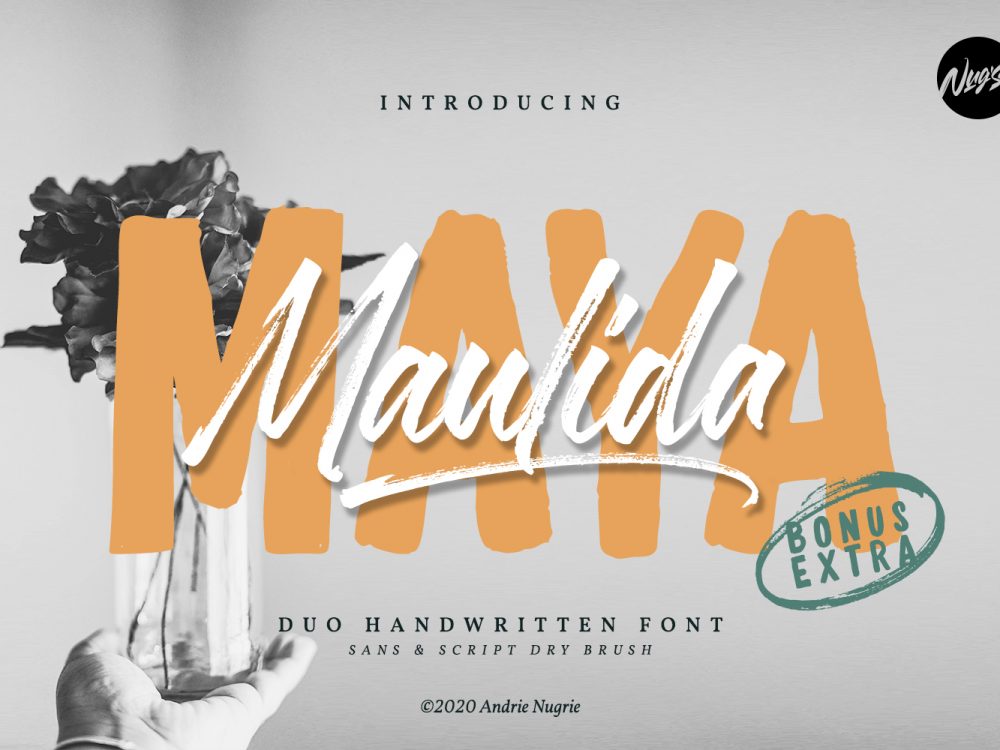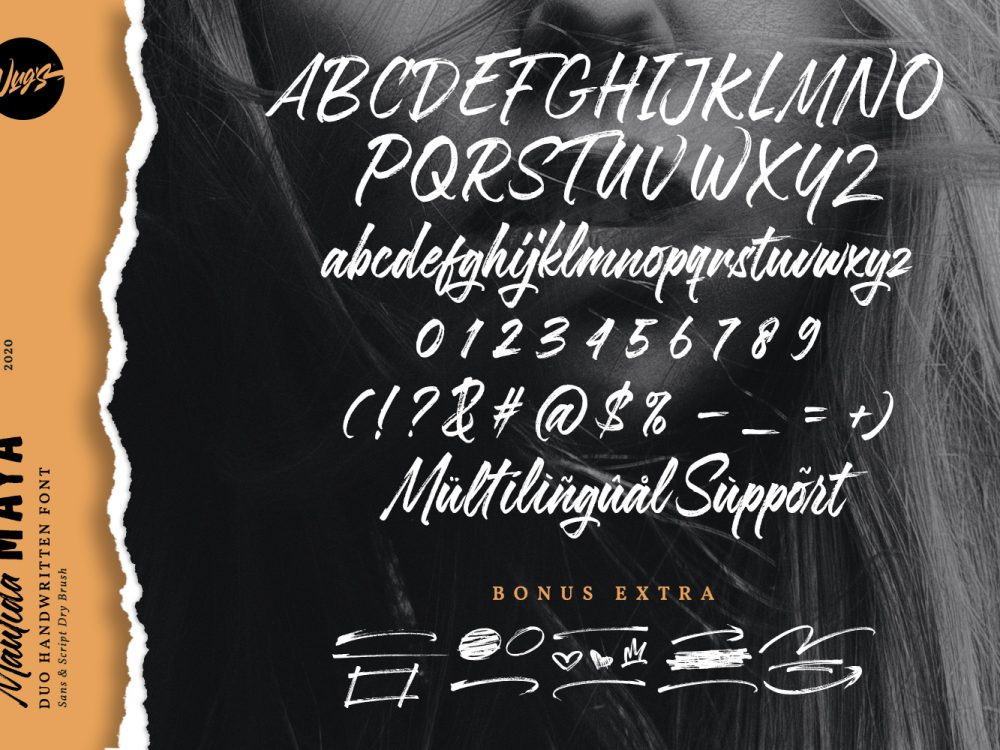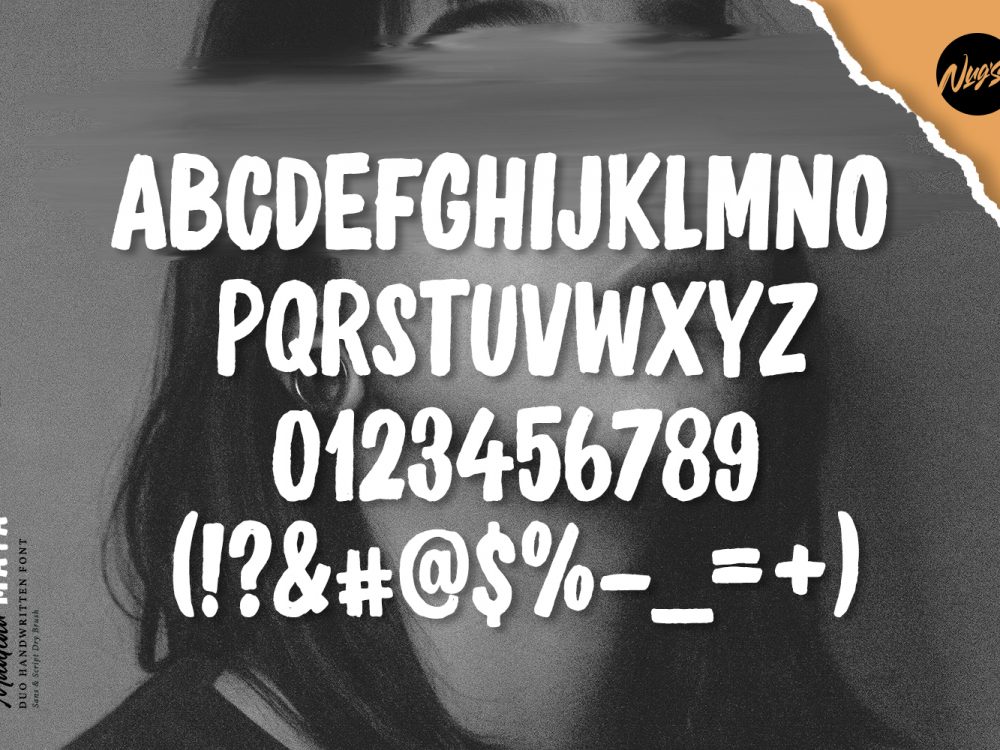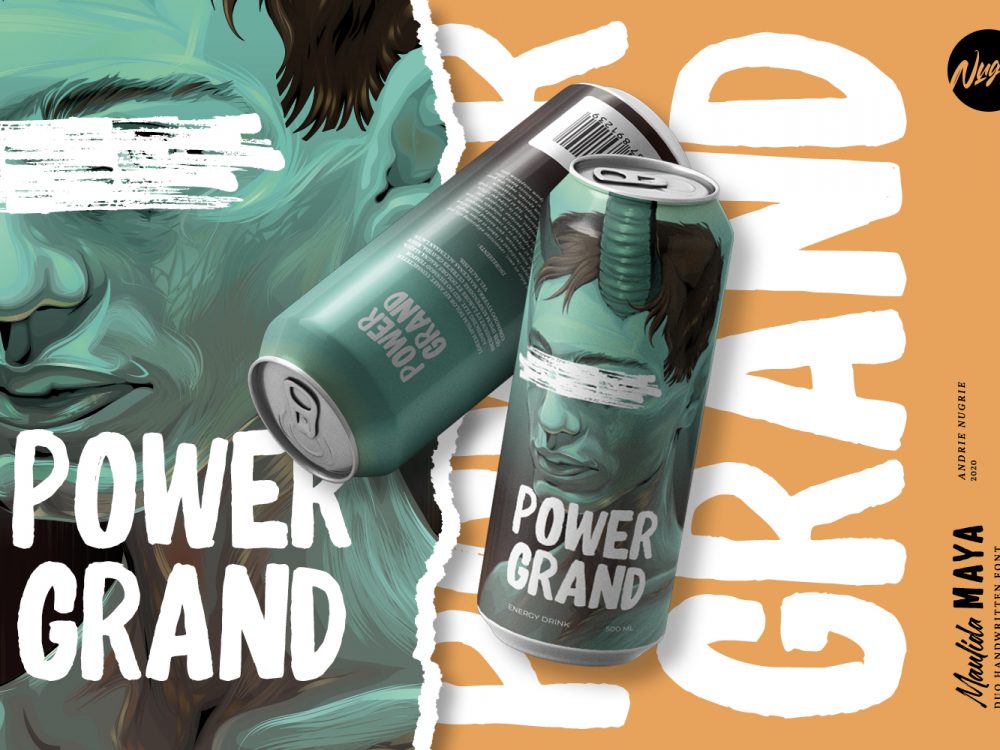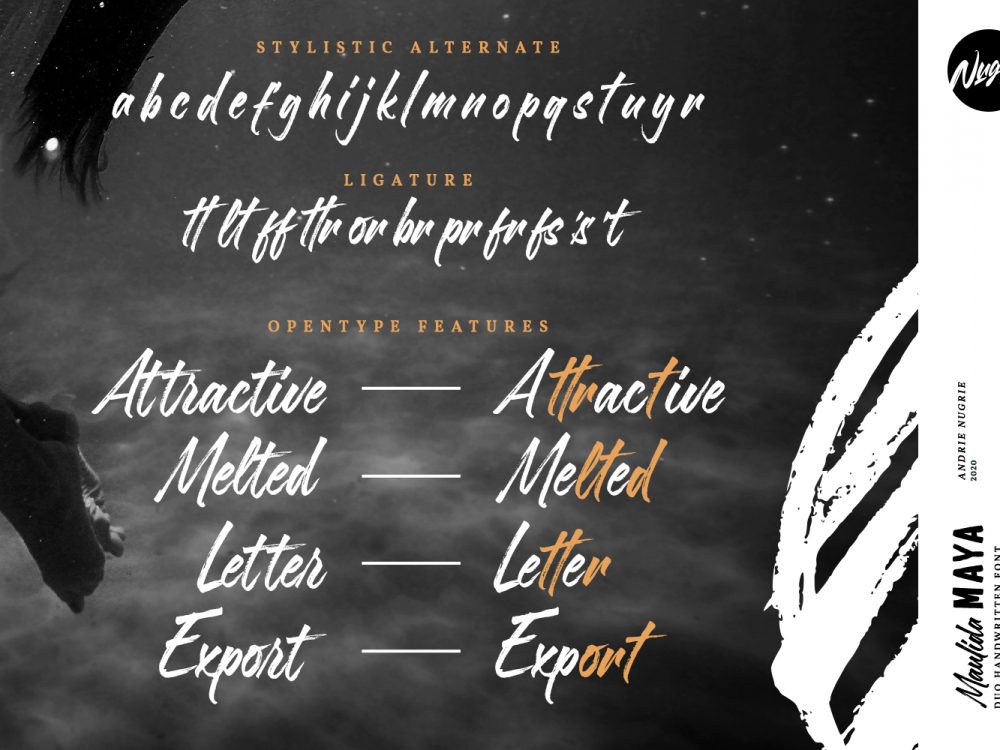
Maulida Maya Free Font
Maulida Maya Free Font is an interesting handwritten font that mimics writing with a brush. This font compares favorably with other fonts with a modern style and is very well suited for your various design projects that require a quality script font. You can use this font to create memorable romantic posters, wedding invitations, greeting cards, branding, flyers, t-shirt and pillow prints, and more. Improve the quality and increase the popularity of your design projects using this font. If you like it don’t forget to check out the full version.
Author: Andrie Nugrie